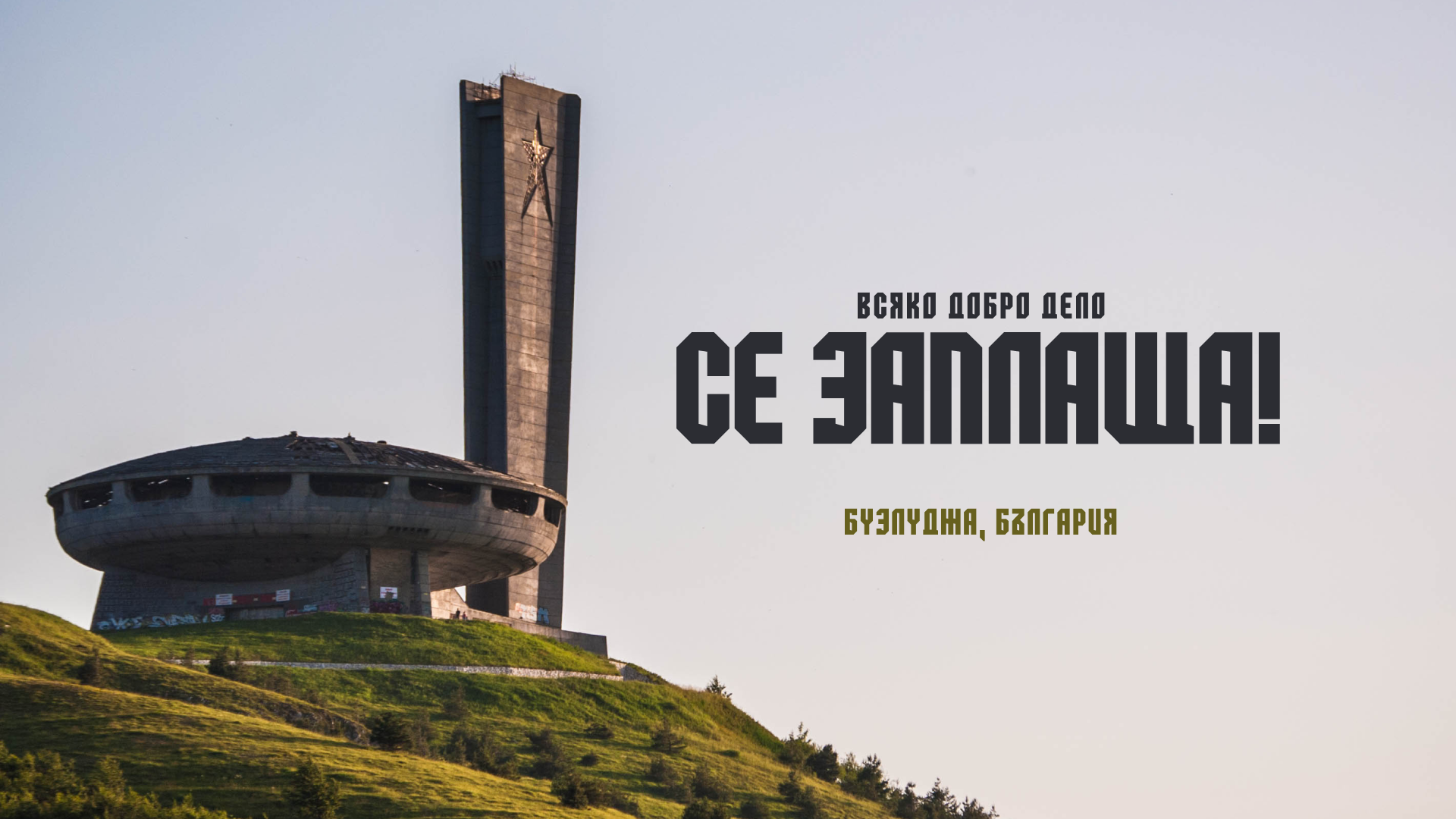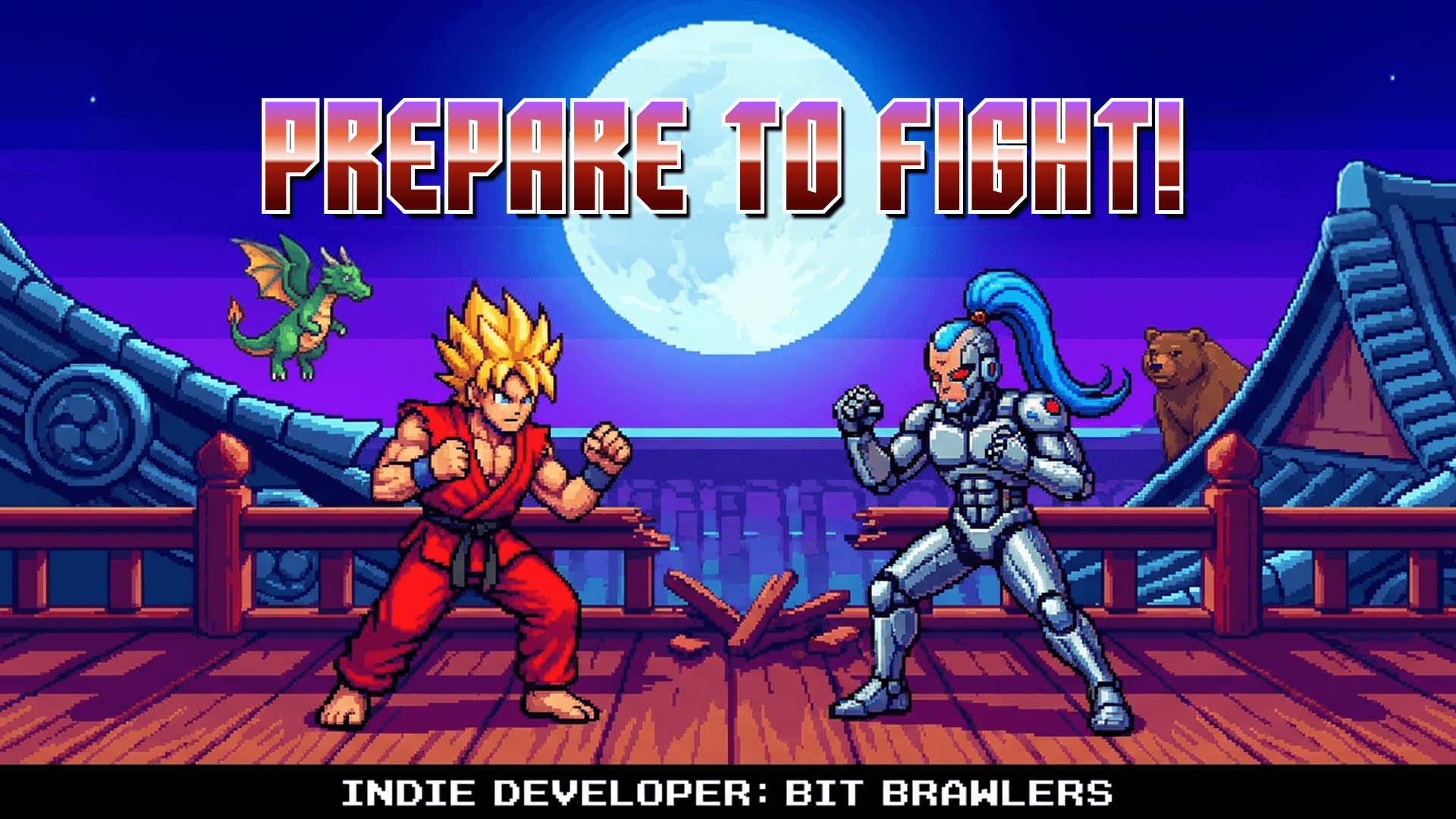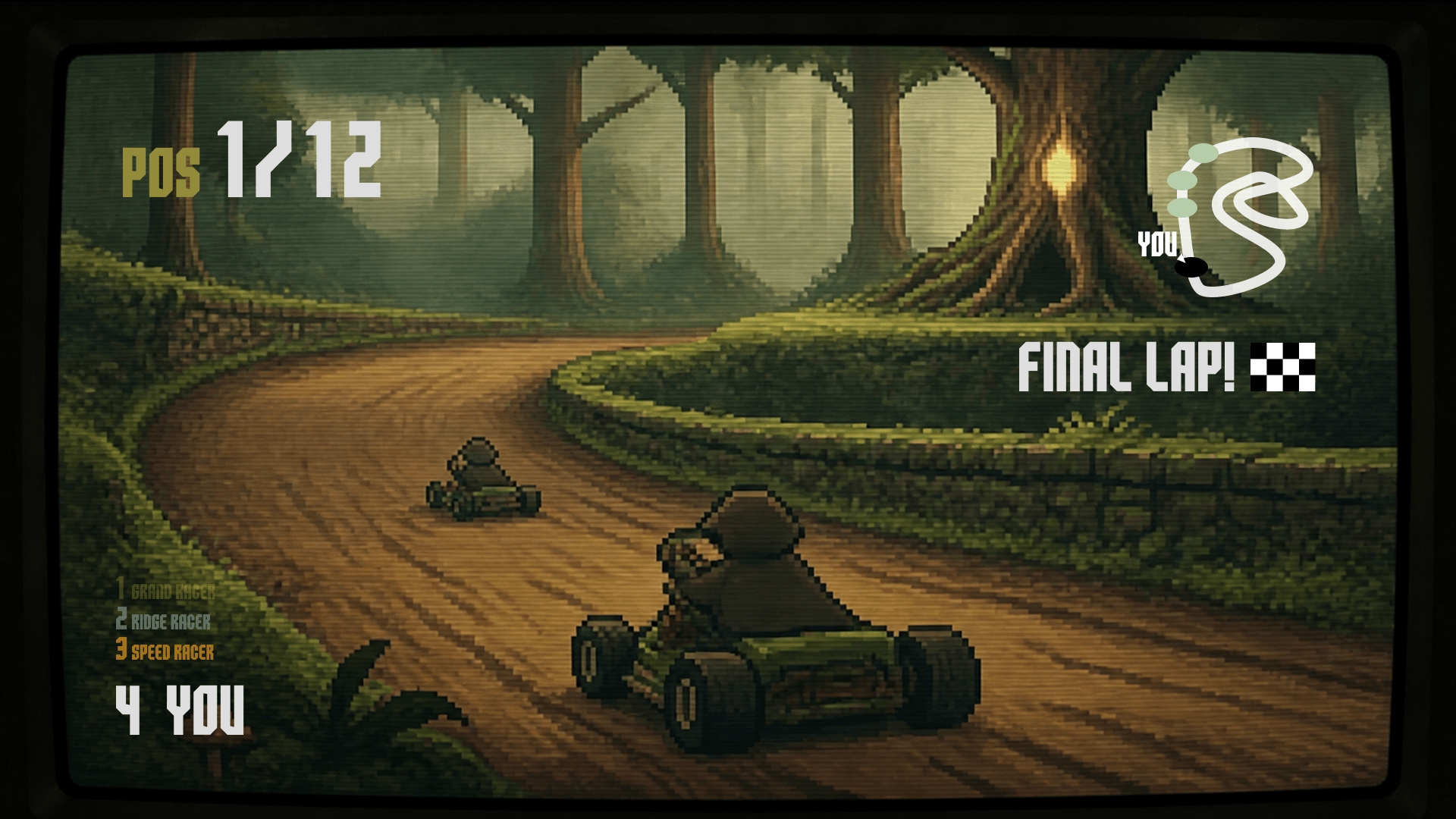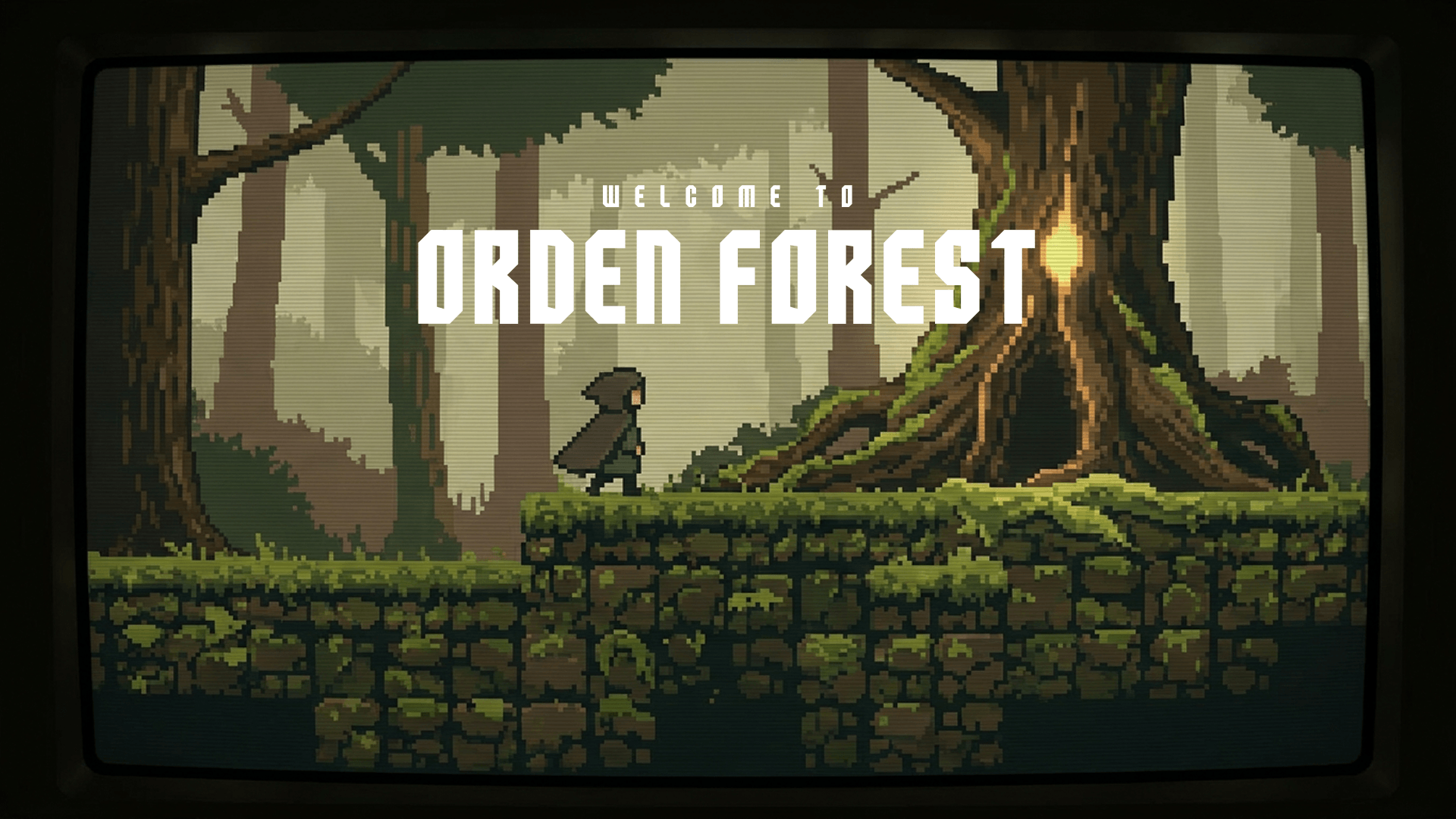
Koysca Display
is а typeface created by NeedMoreFonts. Made to be industrial with a pinch of playful motifs. It is ideal to be used as indie game UI typography and title screens.